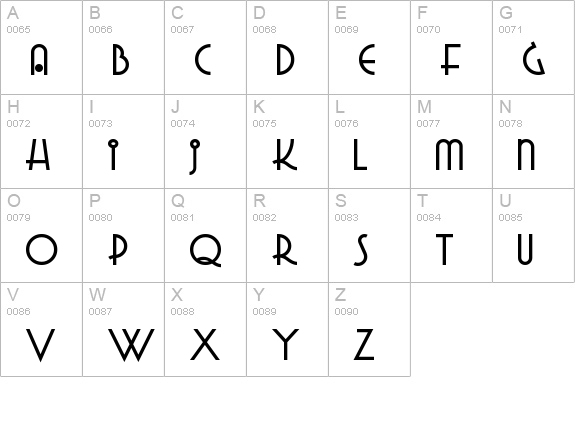
GradoGradooNF font is a versatile and modern typeface that is perfect for a wide range of design projects. Its sleek and elegant design makes it an excellent choice for both print and digital applications. With a clean and easy-to-read style, GradoGradooNF font is suitable for various purposes such as branding, advertising, packaging, and more. Best of all, GradoGradooNF font is available for free download at FontsMarket.com. This means you can easily access this high-quality font without any cost, making it a valuable addition to your font library. Whether you're a graphic designer, a web developer, or a hobbyist looking to elevate your projects, GradoGradooNF font is a fantastic option that won't break the bank. Download it today and enhance your designs with this beautiful and free typeface.